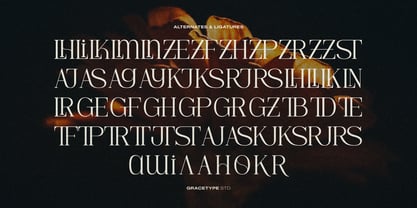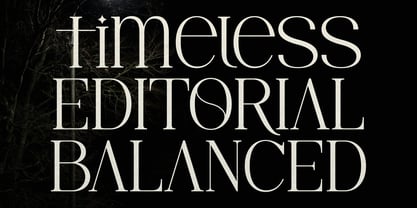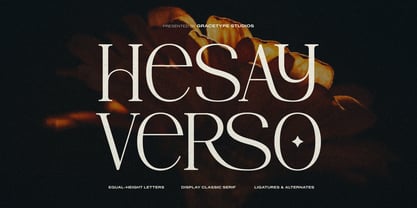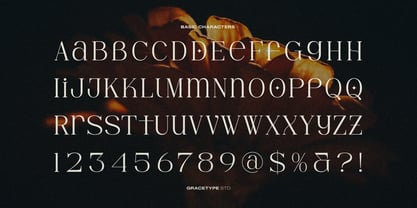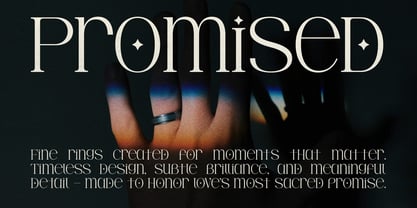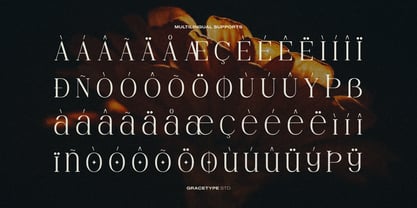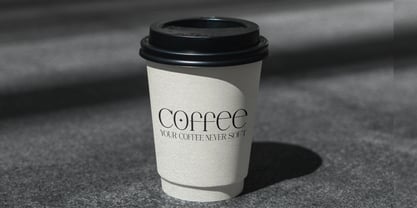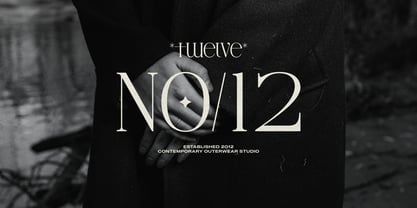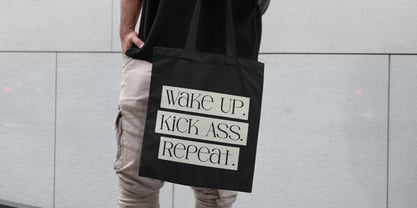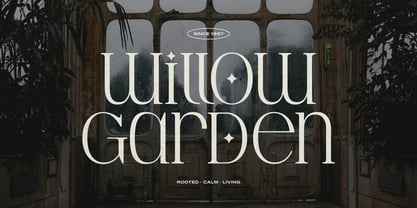
Hesay Verso
by Tini Fitriani
The Hesay Verso Font Family was designed by and published by Tini Fitriani. Hesay Verso contains 2 styles and family package options. More about this family
Hesay Verso | Display Classic Serif, from Denustudios, suitable for any projects such as: logos, branding projects, homeware designs, product packaging, mugs, quotes, posters, shopping bags, t-shirts, book covers, name card, invitation cards, greeting cards, label, photography, watermark, special events, and all your other lovely projects that need Black Metal a taste.